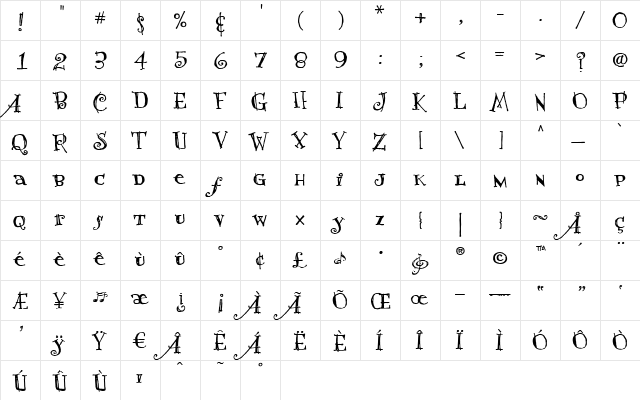
OWOSwanky Regular
Design Context for OWOSwanky Typeface
OWOSwanky is a composed and adaptable typeface that performs quietly and consistently across a wide range of design contexts.